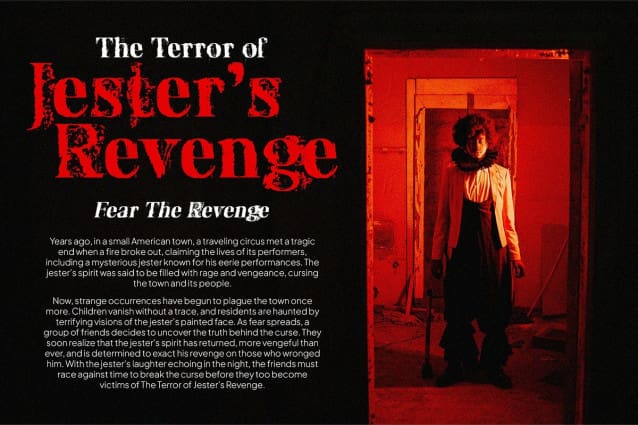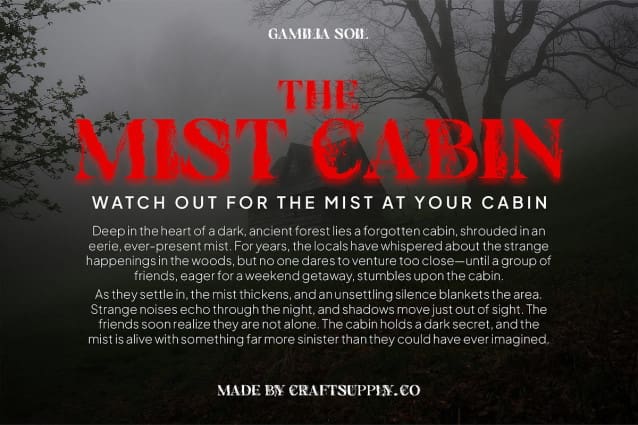
Gamilia Soil Font
Gamilia Soil Font is a modern serif font that harmoniously blends sleek, clean letterforms with a distinctive soil effect. This font marries the refined simplicity of contemporary serifs with a textured touch that evokes the natural qualities of earth or dirt. The result is an elegant and sophisticated design that stands out with its unique, tactile quality.
Organic Touch Enhancing Visual Appeal The soil effect in Gamilia Soil introduces an organic and artistic layer, adding depth and a subtle ruggedness to the otherwise smooth and refined letterforms. This effect not only enhances the font’s visual interest but also brings a touch of natural charm to your designs, making it ideal for applications that seek a balance between elegance and distinctive character.
Perfect for Branding, Promotions, and More Gamilia Soil is perfect for projects that require a blend of sophistication and originality. Its elegant design and textured effect make it a compelling choice for branding, promotional materials, and creative projects. Whether you’re looking to convey a refined and classy image or add a unique, earthy twist, Gamilia Soil delivers a memorable and stylish impression.